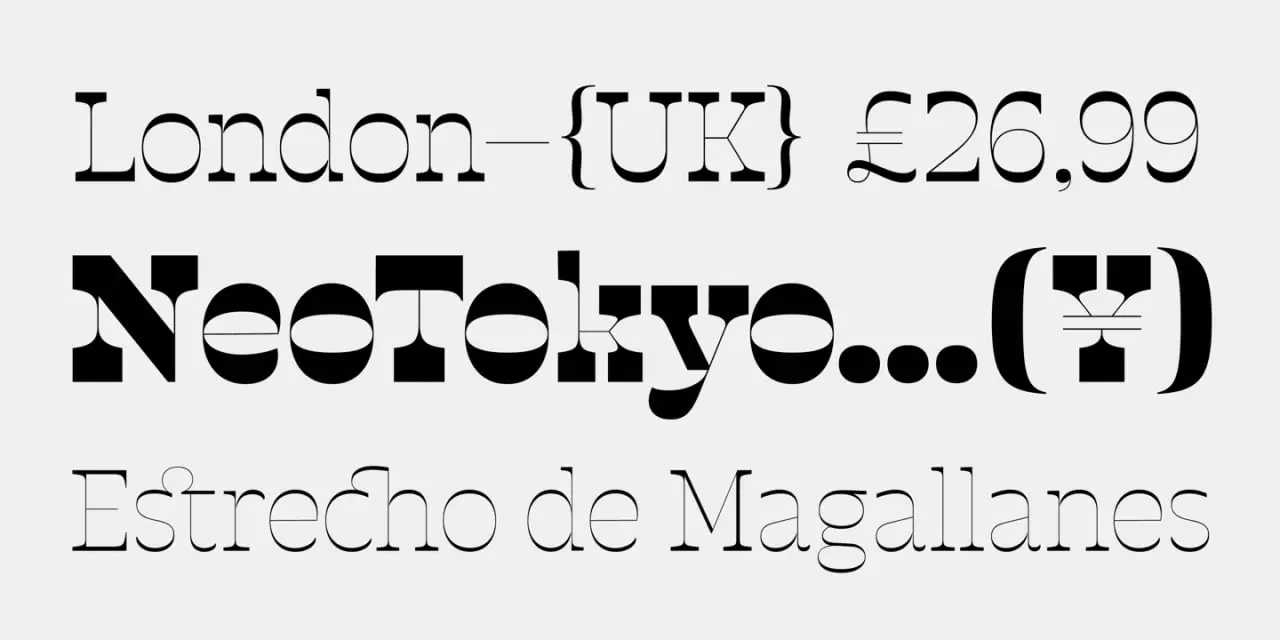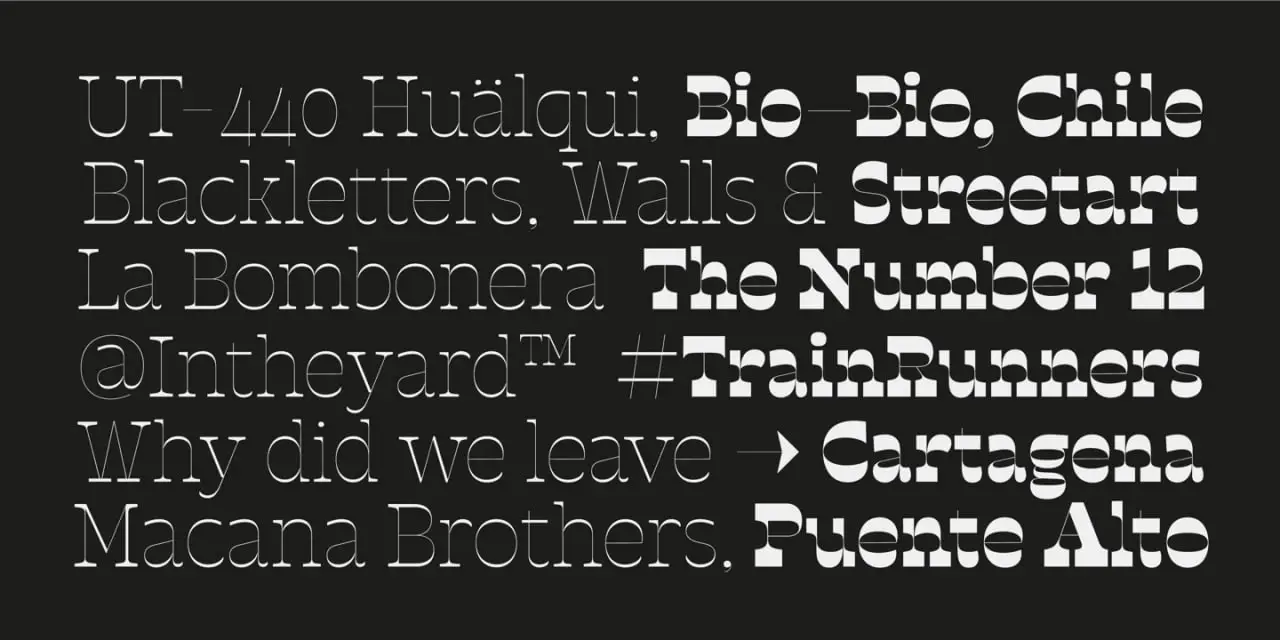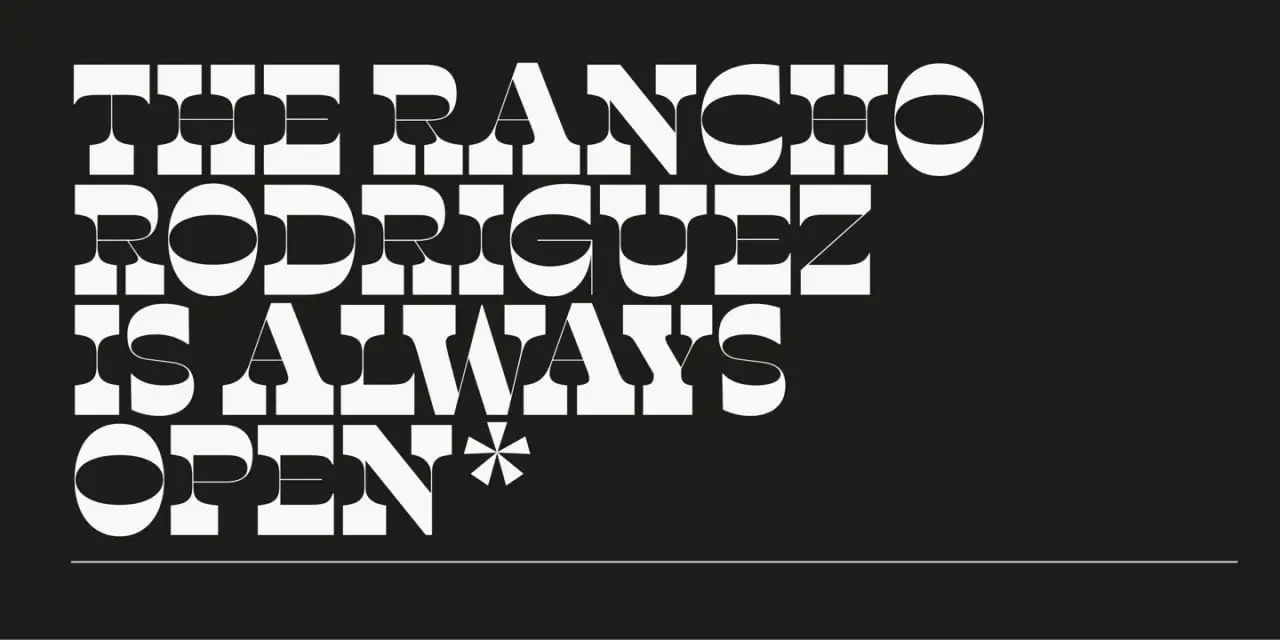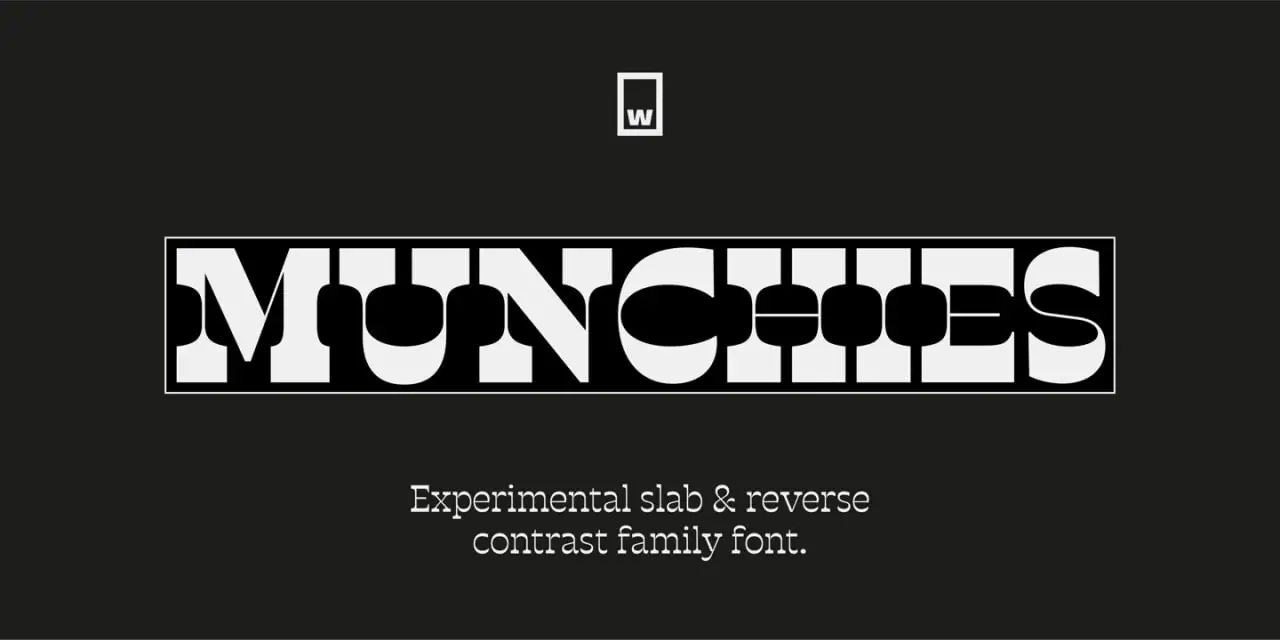
Munchies Font By Gaspar Muñoz
The Munchies Font by Gaspar Muñoz is a playful and unique typeface that adds a touch of whimsy to your designs. This font features a variety of styles and weights, making it versatile for different applications. Whether you’re creating eye-catching branding, fun logos, or engaging web content, Munchies is designed to stand out.
• Weights: Light, Regular, Bold
Utilize Munchies for branding projects, playful advertisements, or any design that requires a fun and approachable typeface. Its unique character shapes are perfect for capturing attention in both print and digital formats.